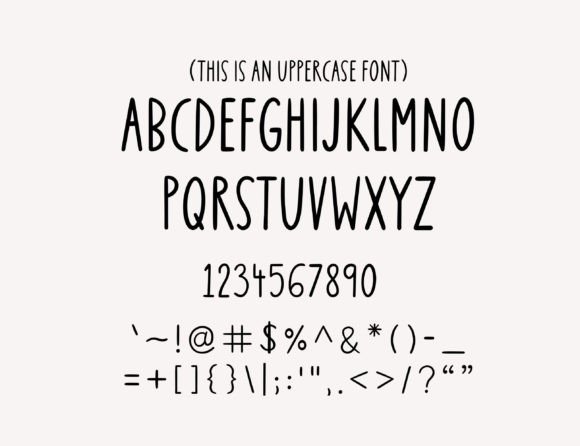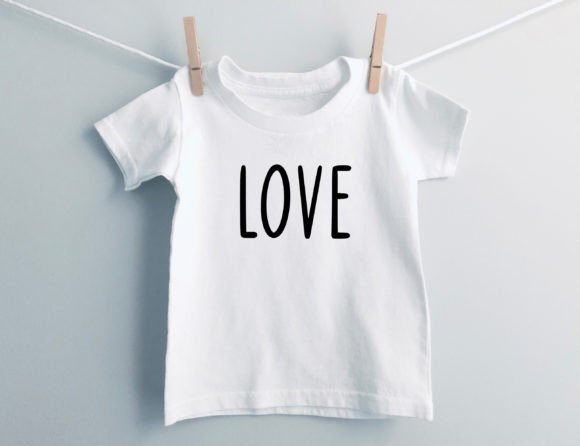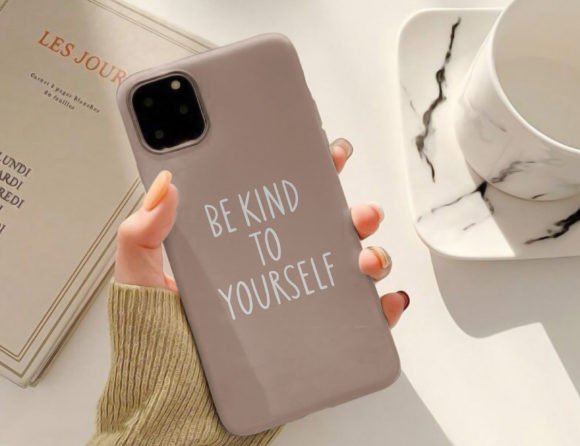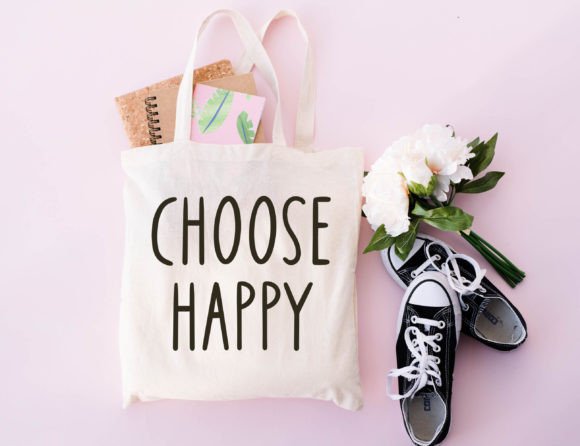
Unlock Your Creativity with Daydream Font: The Ultimate Duo for Designers and Crafters
Are you tired of using the same old fonts in your designs? Look no further! Introducing Daydream Font, a wonderful duo font that combines the clean lines of a sans serif font with the personal touch of a handwritten font. This versatile font is perfect for designers and crafters looking to add a unique and creative twist to their projects.
The Perfect Pair: Sans Serif and Handwritten Fonts
Daydream Font is a duo font that includes both a sans serif and a handwritten font, making it an incredibly versatile addition to any designer’s toolkit. The sans serif font is clean and modern, with well-balanced characters that are easy to read. The handwritten font, on the other hand, adds a personal and creative touch to any design. Together, these two fonts form a match made in heaven, allowing designers to mix and match to create unique and eye-catching designs.
Well-Balanced Characters for Endless Design Possibilities
One of the standout features of Daydream Font is its well-balanced characters. Each letter has been carefully crafted to ensure that it looks great on its own and in combination with other letters. This makes it easy to use Daydream Font in a wide range of designs, from elegant and sophisticated to playful and whimsical. Whether you’re designing a logo, a brochure, or a social media graphic, Daydream Font is the perfect choice.
Bring Your Ideas to Life with Daydream Font
So, how can you use Daydream Font to bring your ideas to life? The possibilities are endless! Here are a few ideas to get you started:
- Use the sans serif font to create a clean and modern logo for your business or brand.
- Add a personal touch to your social media graphics with the handwritten font.
- Mix and match the two fonts to create a unique and eye-catching design for your next brochure or flyer.
- Use Daydream Font to create a beautiful and elegant wedding invitation or stationery set.
Why Choose Daydream Font?
So, why should you choose Daydream Font for your next design project? Here are just a few reasons:
- Versatility: Daydream Font is a duo font that can be used in a wide range of designs, from elegant and sophisticated to playful and whimsical.
- Unique: The combination of a sans serif and handwritten font makes Daydream Font truly unique and eye-catching.
- High-quality: Daydream Font is a high-quality font that is designed to look great in any design.
Get Creative with Daydream Font
| Author | theprintablegirls |
Daydream Font is a wonderful duo font that is perfect for designers and crafters looking to add a unique and creative twist to their projects. With its well-balanced characters and versatile design, Daydream Font is sure to become a staple in any designer’s toolkit. So why wait? Download Daydream Font today and start bringing your ideas to life!